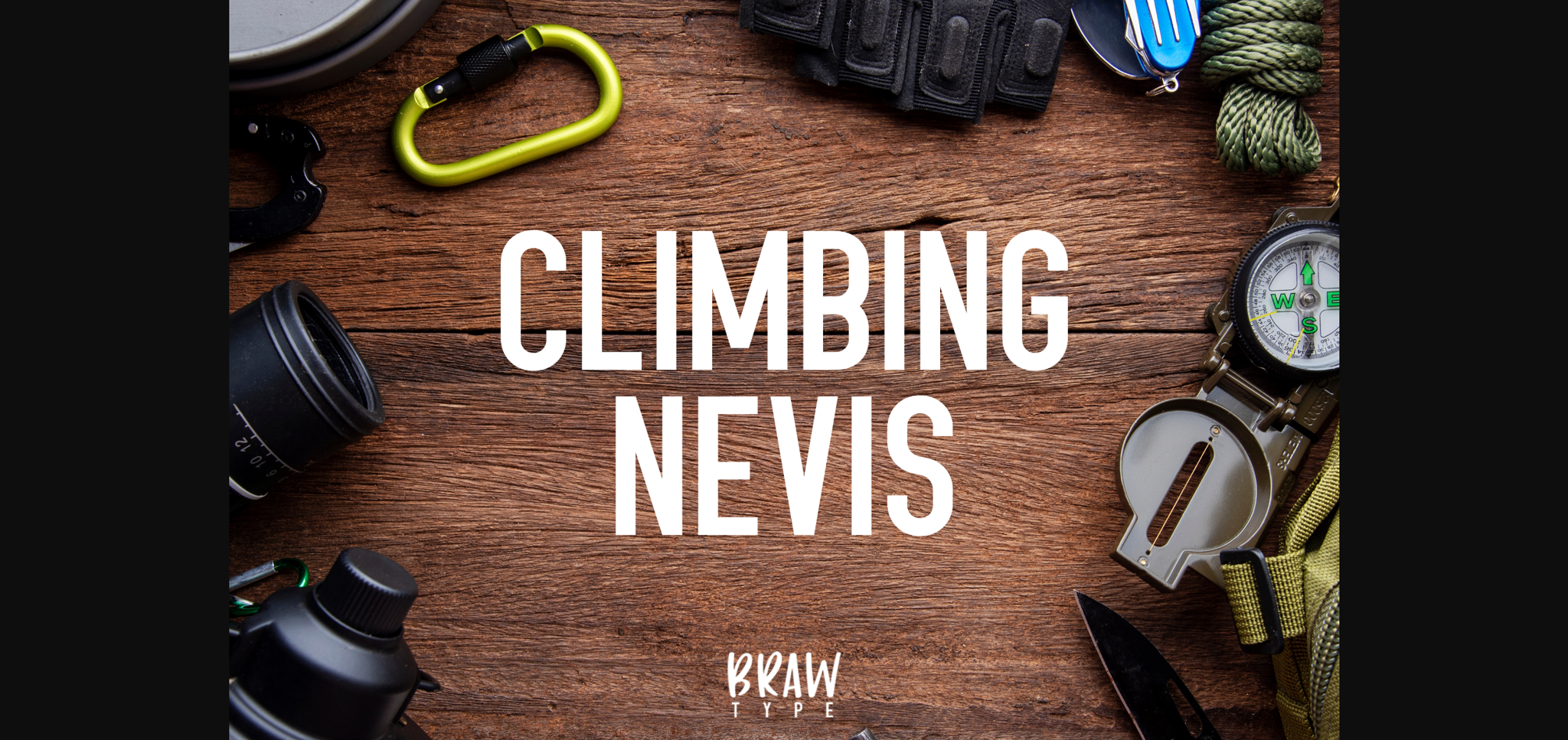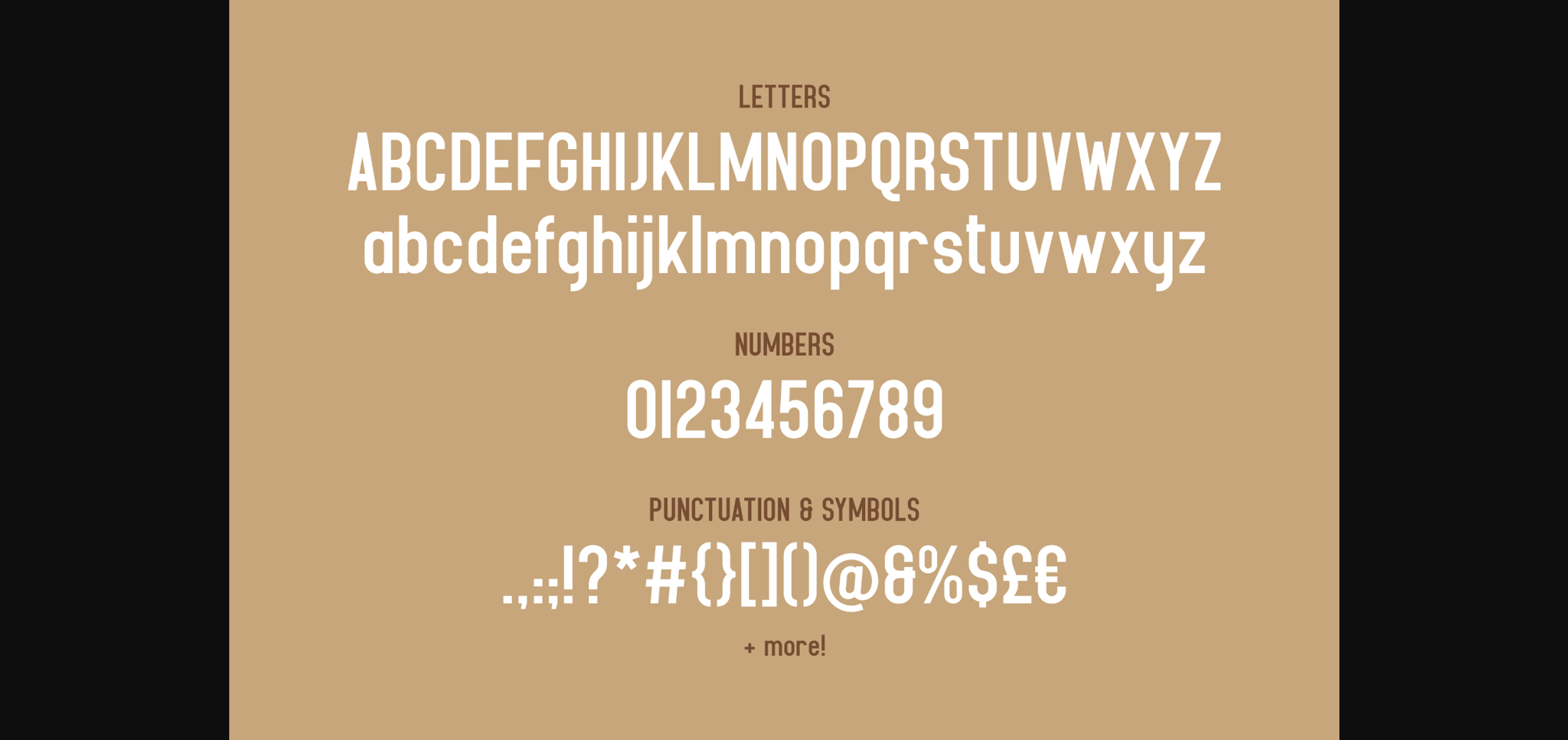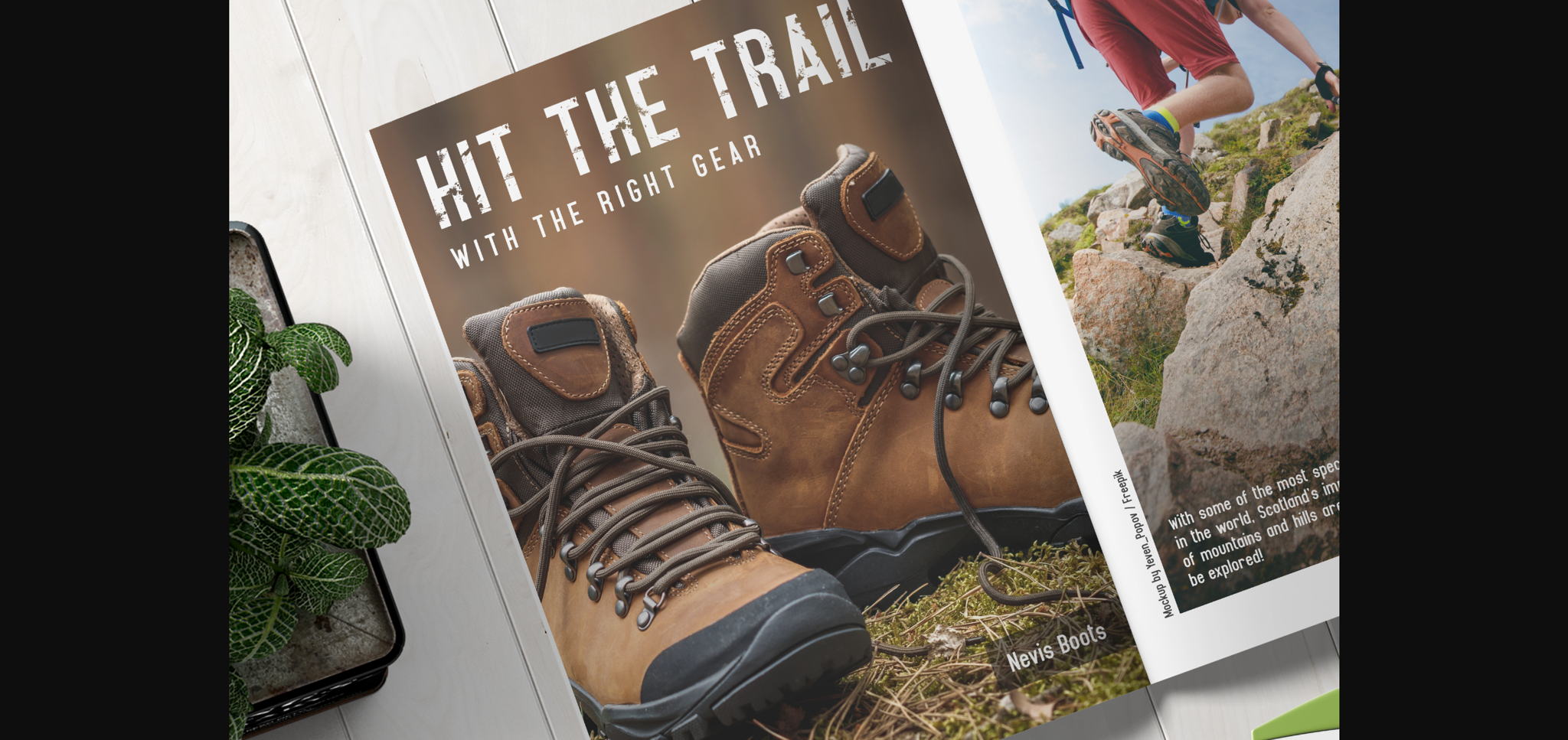
About Climbing Nevis Font
Put on your climbing boots and go on an adventure!
Climbing Nevis is a modern condensed display font that comes in 3 exciting styles. With big, bold characters, Climbing Nevis is a perfect choice for headings, branding, signage, advertising, magazine layouts, and much more! Working on an adventure-themed project? Try Climbing Nevis Rough for a rugged, outdoor look.